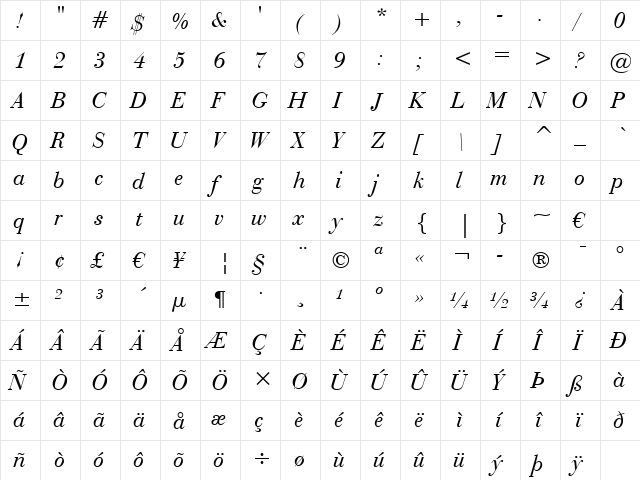
BauerBodni BT Italic
Design Context for BauerBodni BT Typeface
BauerBodni BT takes a measured approach to typography — its balanced proportions and neutral character make it a reliable workhorse for both digital and print work. The dynamic lean of this cut emphasises speed and emphasis in any layout.
Pro Tip: Try BauerBodni BT for annotation and caption copy alongside an upright companion — the contrast in angle creates a dynamic but ordered typographic system.